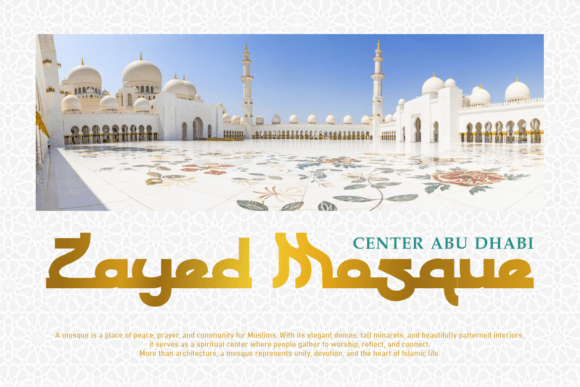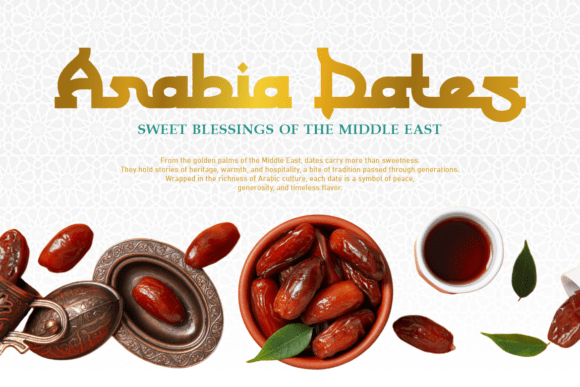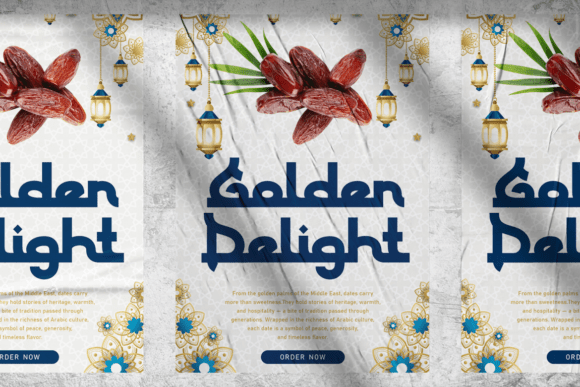
Introduction to Sacred Mubarak Font
Elevate your designs with the cultural richness and spiritual elegance of Sacred Mubarak, a bold Arabic-inspired display font that fuses modern design with Middle Eastern heritage.
The font’s distinctive curves and geometric precision are reminiscent of Kufic calligraphy, reimagined through a contemporary lens Every letterform features thick horizontal strokes and sharp verticals that balance modern minimalism with ornamental heritage.